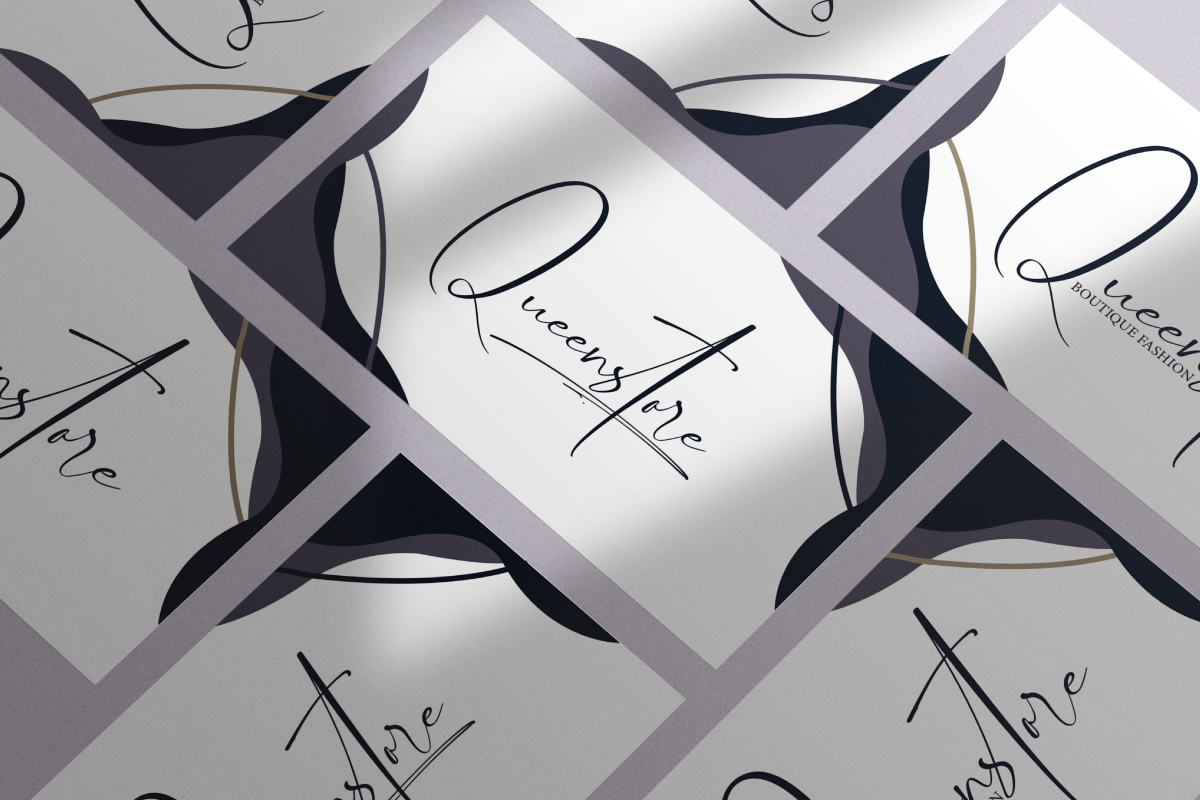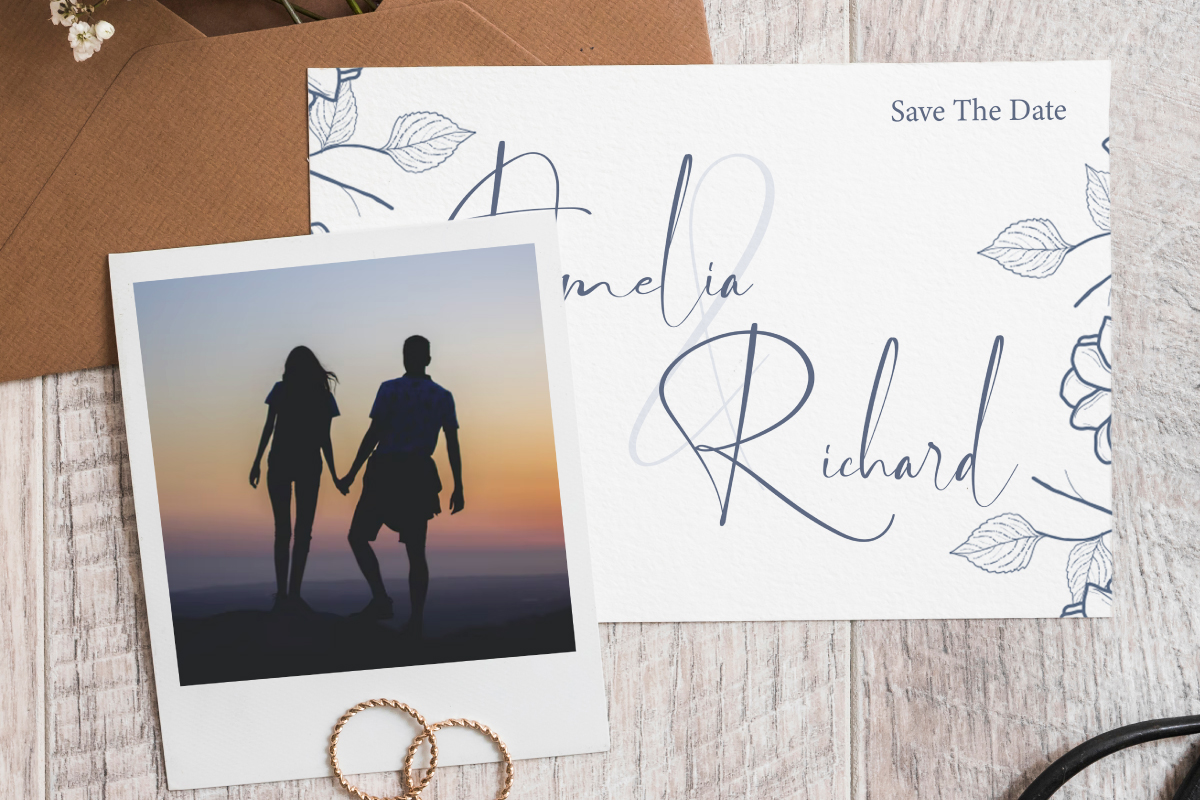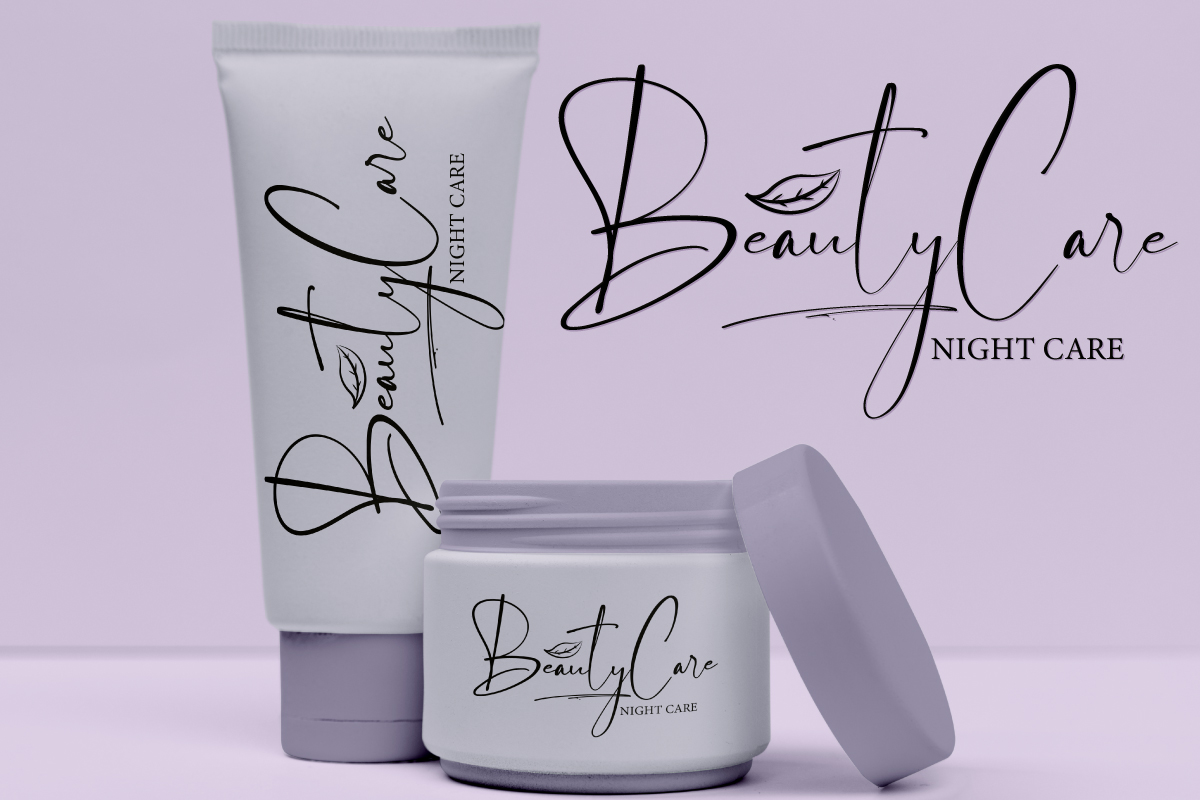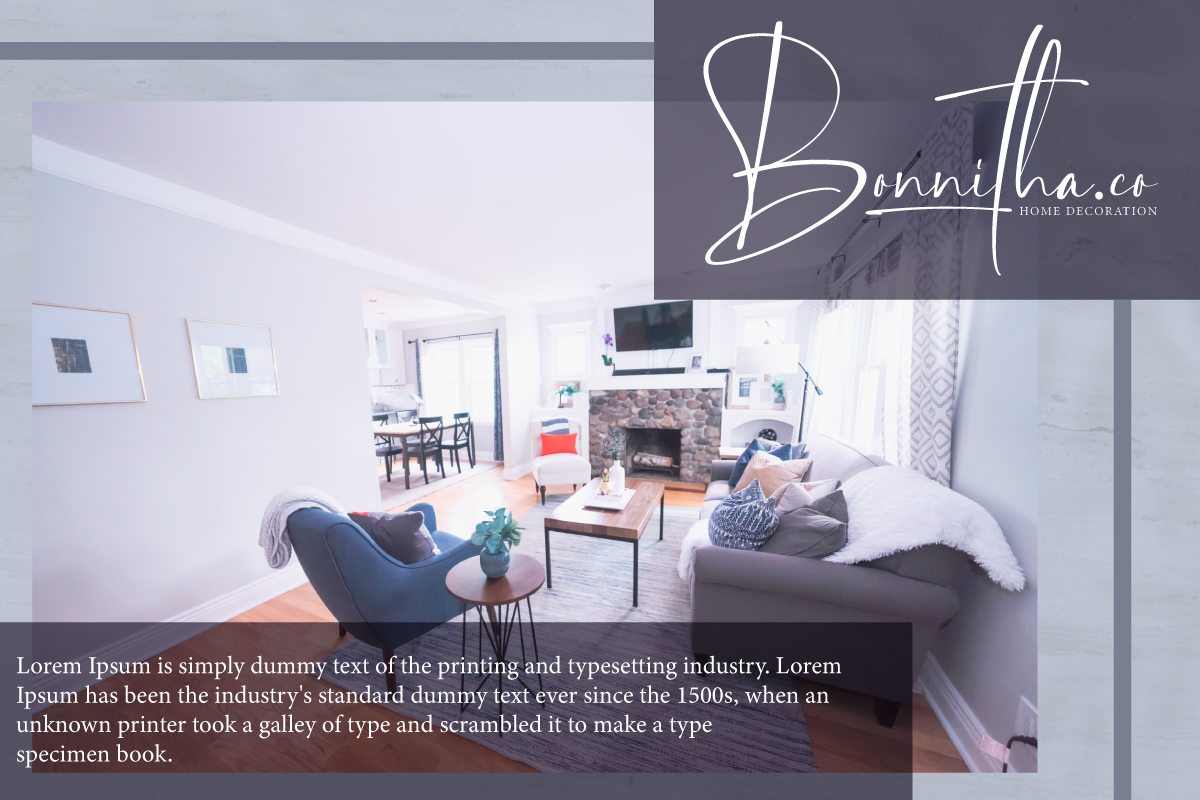
Boston Night Font
Boston Night Handwritten Font
This is a gorgeous signature with natural handwritten script font for many different projects such as beauty care brand, florist, furniture business, invitation, label, logo, photography, packaging design, product design, quote, stationery, title, wedding project, special events or anything.